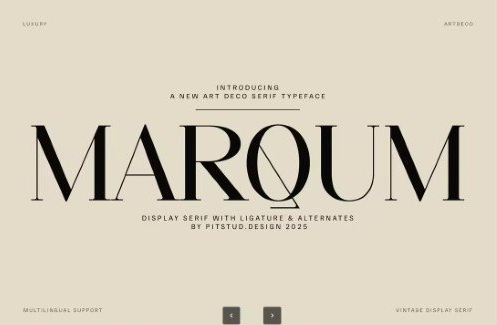
Marqum – Art Deco Branding Font
Marqum is a refined serif typeface that brings sophistication, prestige, and timeless beauty to creative projects. Featuring art deco-inspired details, graceful curves, and a modern art deco feel, it delivers a striking presence ideal for branding, fashion, and editorial work.  Perfect For From brand identities and magazine covers to premium packaging and event invitations, Marqum balances elegance with readability. Its sleek proportions and distinctive details make it equally suited for logos, signage, and promotional materials.